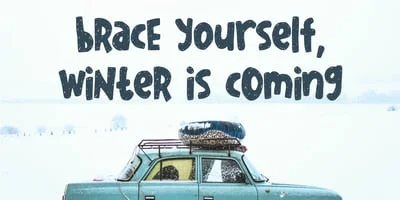
Sketchy in snow Font
Sketchy in Snow Font
Sketchy in Snow Font is perfect for winter holiday branding, cozy Christmas marketing, snowy greeting cards, artistic winter publications, handcrafted seasonal designs, charming ski resort signage, and whimsical winter storytelling projects.
What makes Sketchy in Snow Font exciting is its artistic whimsy and winter charm, featuring hand-drawn letterforms that capture the essence of snowy creativity while delivering cozy visual appeal and seasonal authenticity.
The Sketchy in Snow Font family includes Light, Regular, Medium, Bold, and Heavy weights, plus sketchy variants and winter-inspired alternates that enhance the font's artistic character and seasonal possibilities.
Sketchy in Snow Font embodies the magical artistry of winter wonderlands and the cozy charm of snow-covered creativity through whimsical typography design. This enchanting typeface captures the playful sketches drawn in fresh snow and the heartwarming spirit of winter artistic expression, creating a charming visual language that speaks to winter enthusiasts and creative souls who value seasonal beauty, artistic whimsy, and the magical appeal of snow-covered landscapes. The font's sketchy character and winter appearance make it perfect for holiday brands, winter resorts, and seasonal creative organizations that want to communicate warmth, creativity, and the delightful appeal of winter artistic expression.
Winter resorts and holiday brands consistently select Sketchy in Snow Font for projects that require authentic seasonal credibility and artistic visual appeal. The typeface's hand-drawn construction and whimsical personality make it exceptionally effective for Christmas markets, winter festivals, and seasonal craft businesses where artistic charm and winter authenticity are paramount. Each character has been crafted with artistic precision to ensure maximum charm across all winter applications and seasonal environments.
The seasonal advantages of Sketchy in Snow Font extend beyond its winter appeal to include practical functionality for diverse holiday applications. The font maintains excellent readability in cozy settings while delivering the distinctive character that creates memorable winter experiences and connects with audiences seeking authentic seasonal creativity. Its comprehensive character set includes winter symbols and artistic elements that make it particularly suitable for seasonal documentation and winter communication.
Ski resorts, Christmas markets, and winter craft businesses frequently choose Sketchy in Snow Font because of its ability to instantly convey winter authenticity and artistic sophistication. The typeface's whimsical aesthetic helps establish credibility in seasonal markets while appealing to customers who value winter beauty, artistic expression, and the magical experiences that come from authentic snow-covered creativity and charming winter artistry.